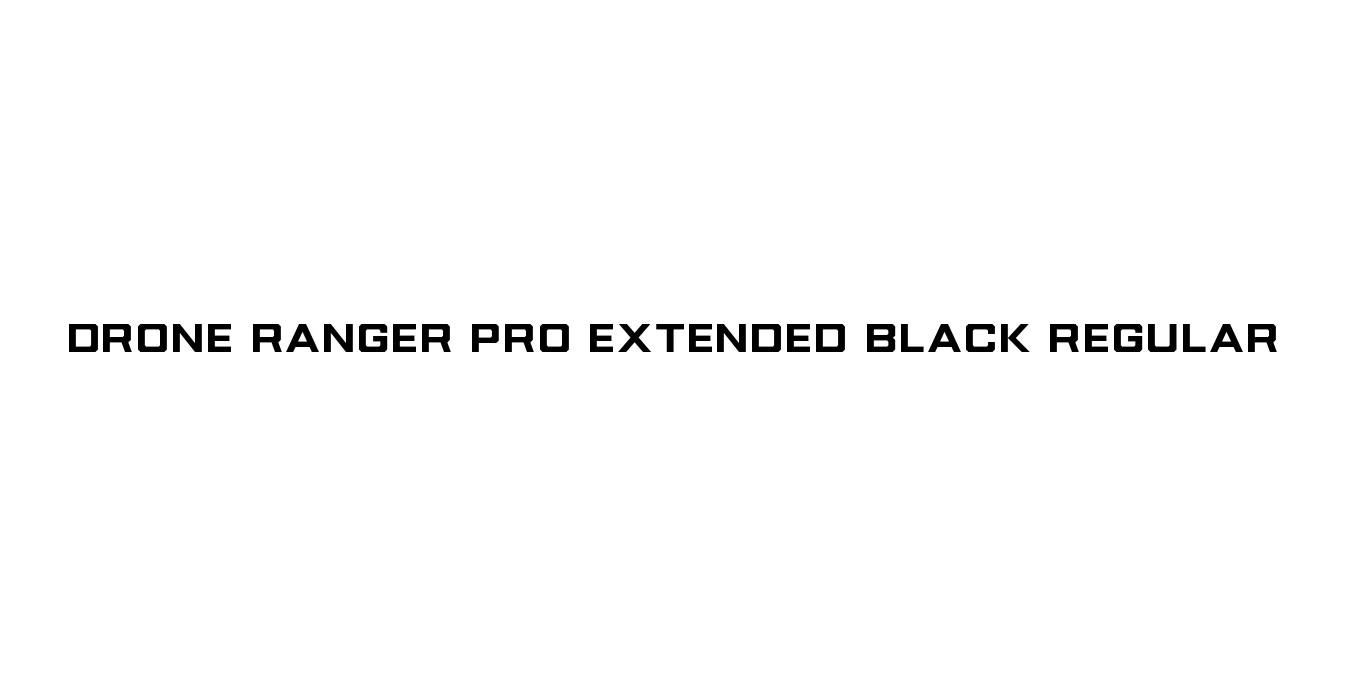
Drone Ranger Pro Extended Black Regular
Designed by Jay de Laroque (RetroSupply Co.)
| Category | Sans Serif / Display |
| Designer | Jay de Laroque (RetroSupply Co.) |
Drone Ranger Pro Extended Black Regular is a heavy-duty, geometric sans-serif typeface meticulously crafted by Jay de Laroque. Inspired by the rugged aesthetic of vintage military equipment and industrial machinery, this font features distinctive octagonal letterforms that provide a sense of architectural stability and masculine energy. The Extended Black weight offers a wide, commanding presence, making it perfect for designs that require immediate attention and a bold, modern feel.
As part of the larger Drone Ranger Pro family, this specific weight excels in high-impact environments. Its wide horizontal proportions and thick stroke weights ensure legibility at large scales, while the precise angles pay homage to mid-century technical drawings and utilitarian signage. Whether applied to digital interfaces or physical print media, it remains a versatile tool for designers looking to convey strength and precision.
Drone Ranger Pro Extended Black Regular Best Uses
Ideal for creating powerful team logos, jersey numbers, and athletic apparel.
Perfect for sci-fi or military-themed game UI, HUDs, and title screens.
Suited for bold streetwear graphics and rugged outdoor brand labels.
Highly effective for impactful posters, magazine covers, and cinematic titles.